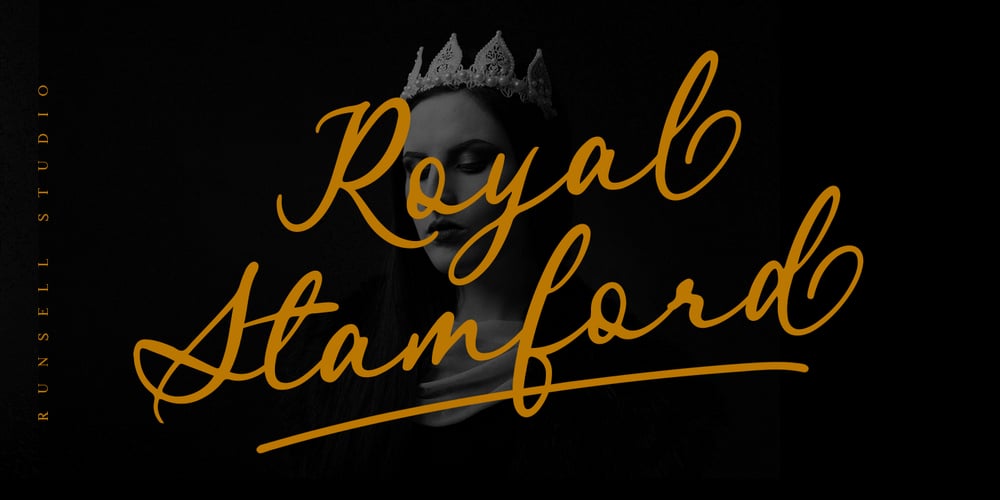
Royal Stamford Font Family was designed by Fitriyawan and published by Runsell Type. Royal Stamford contains 2 styles and family package options. Royal Stamford is a classy handwriting font with a distinctive curve, inside with some interesting features that are perfect for an authentic-style project . This font is perfectly suited for signature, stationery, logo, typography quotes, magazine or book covers, website headers, clothing, branding, packaging design and more. This handwritten script font contains upper and lowercase characters, numerals and punctuation.It includes Contextual Alternates, Stylistic Set 1, Stylistic Set 2, Stylistic Set 3, Swash. Features: – Basic Characters ( Uppercase and Lowercase, Numerals, Symbol and punctuation ) – Contextual Alternates, Stylistic Set 1, Stylistic Set 2, Stylistic Set 3 – Ligatures – Multi-Lingual support – Swashes – PUA Encoded How to get access alternate glyphs with designing software to open type fonts, click here.